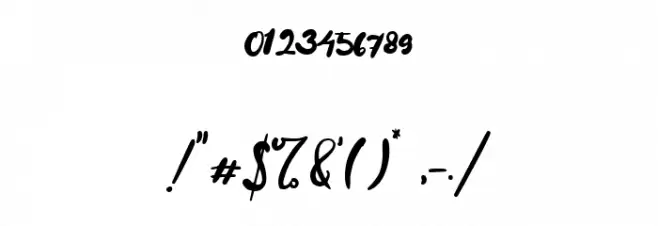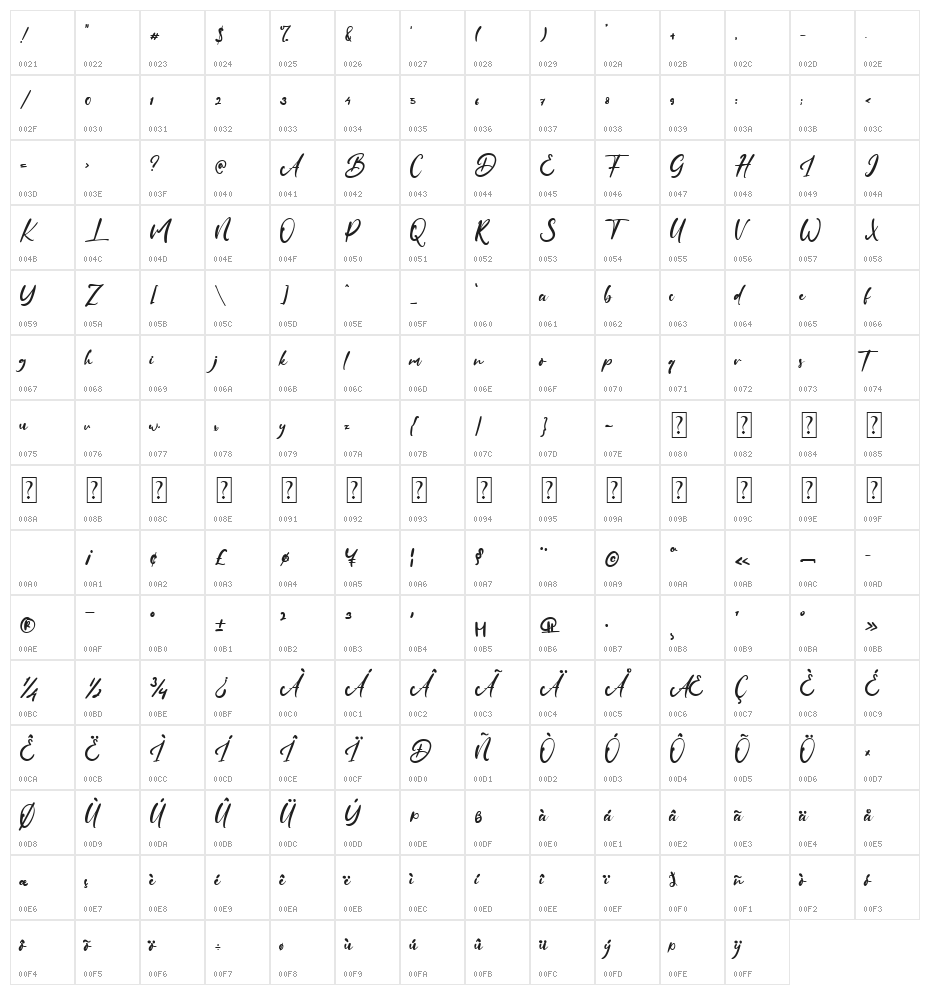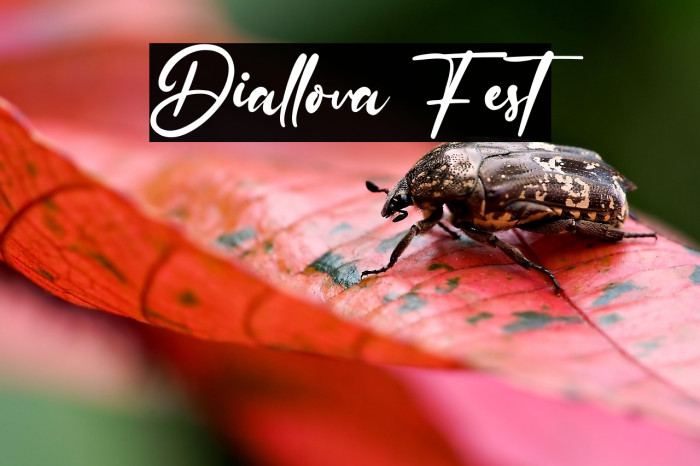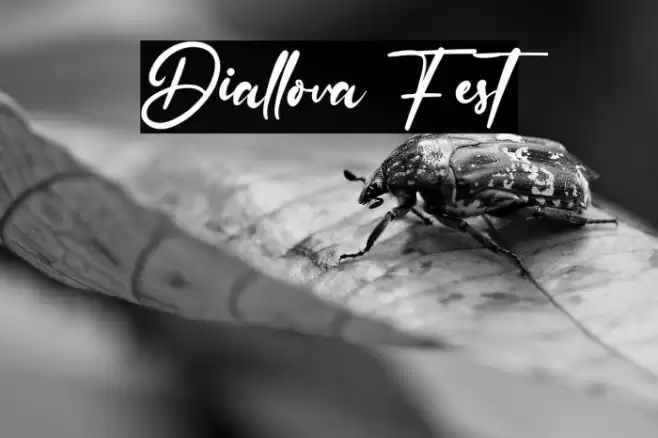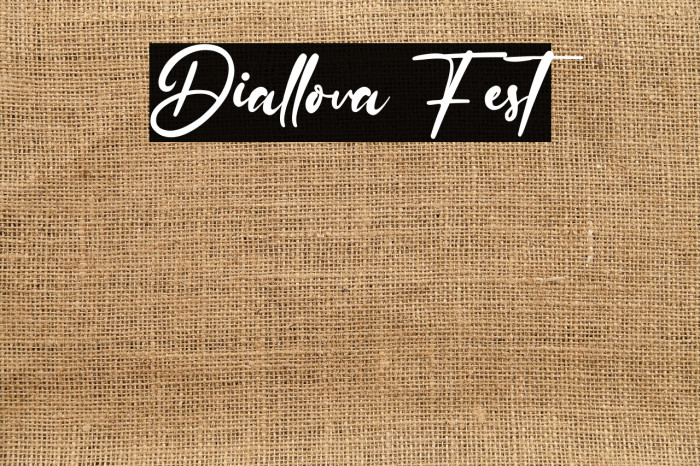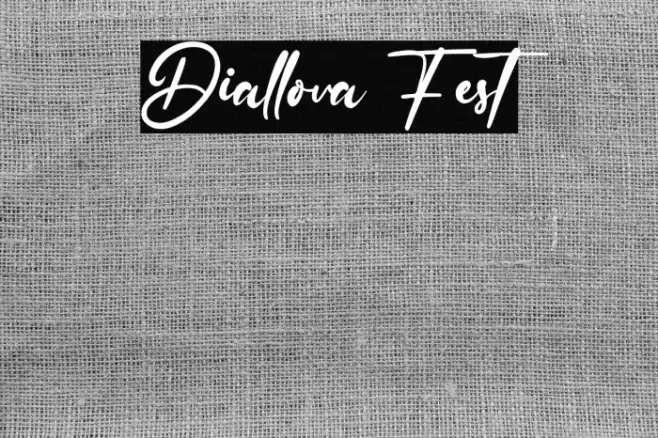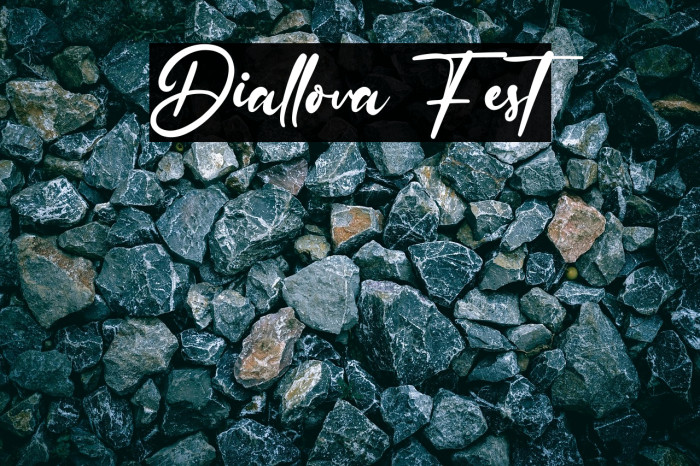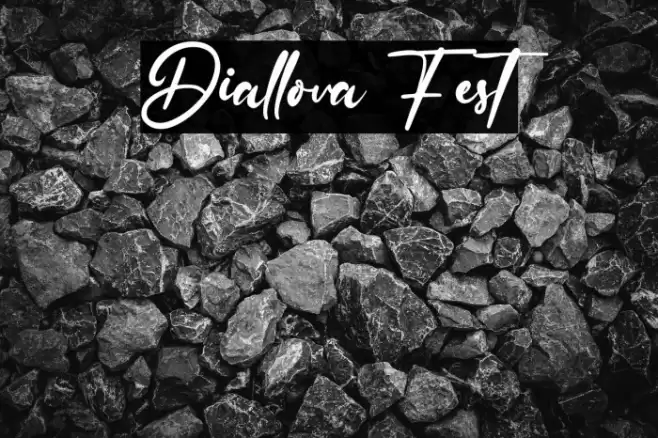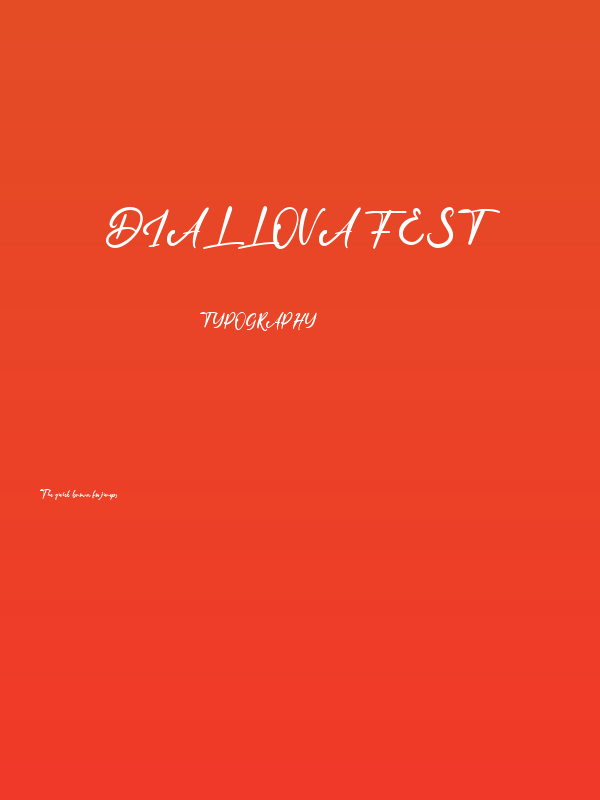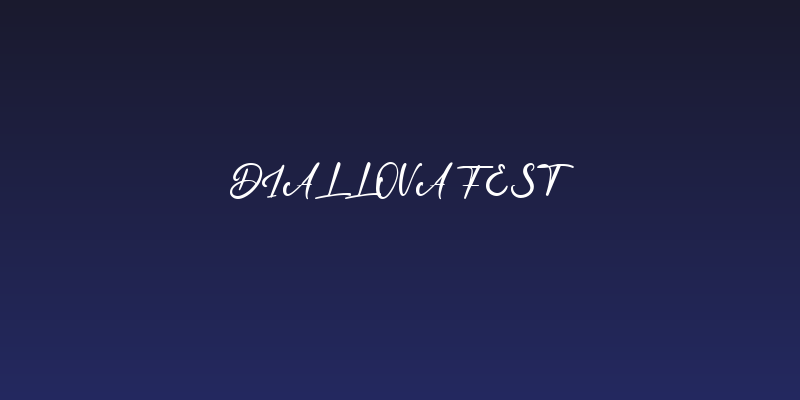
Diallova Fest Font
Diallova Fest Description
This font exudes a lively and dynamic character with its flowing script style. The letters are elegantly connected, giving a sense of fluidity and movement. The uppercase letters are bold and prominent, while the lowercase letters maintain a consistent rhythm. The numerals are clear and well-defined, complementing the overall aesthetic. Special characters are thoughtfully integrated, enhancing the font's versatility. The strokes vary in thickness, adding a touch of sophistication and flair. This font is perfect for projects that require a personal and artistic touch.
| Use Case | Logos, Headlines, Artistic designs |
| Proposed Projects | Ideal for wedding invitations, greeting cards, branding projects, and artistic designs. |